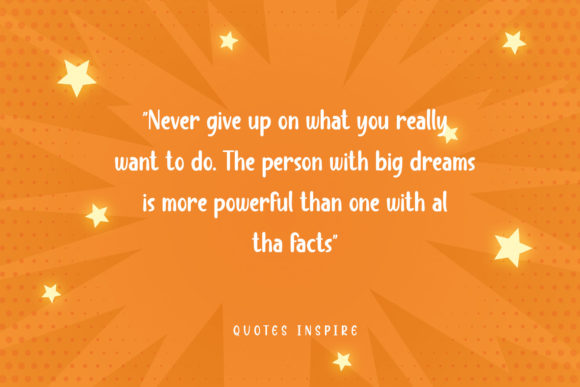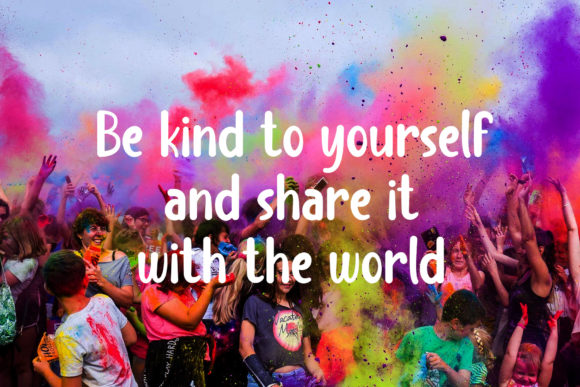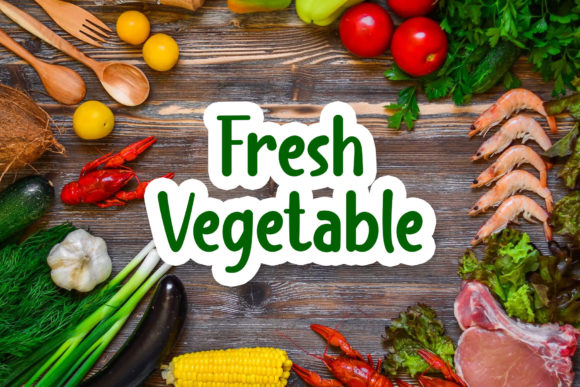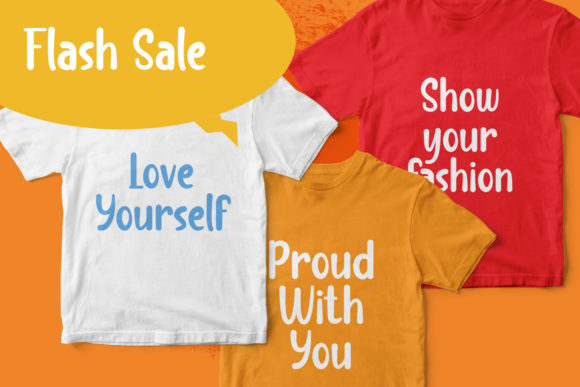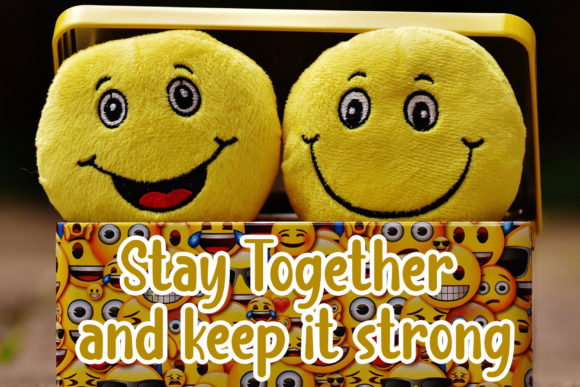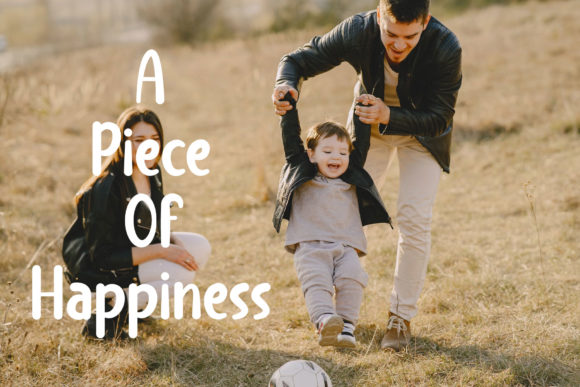
Introduction to Lucky Boss Font
Lucky Boss is a fun and bubbly display font.
This original look will appeal to a wide range of crafty ideas, from letterheads and titles, to stationery .
Key Features of Lucky Boss Font
Why Choose Lucky Boss Font?
Lucky Boss Font offers exceptional quality and versatility, making it a valuable addition to your design toolkit. Whether you’re creating for personal projects or commercial use, Lucky Boss Font delivers professional results.